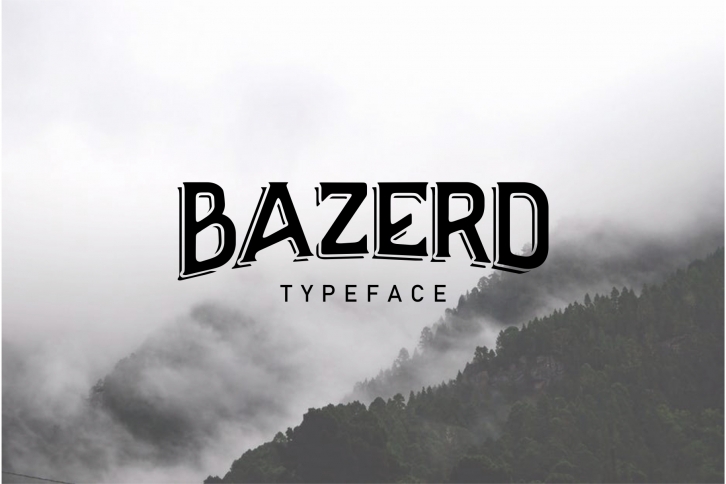
BAZERD is a great font that was designed by Dezignata. Imagine the amount of combinations you can create using this font! The archive is 6.60 MB and it was released on May 18, 2018. BAZERD looks beautiful on wedding invitations, greeting cards, logos, posters, labels, t-shirt designs, logos, business cards and is perfect for use in ink or watercolor works, fashion, magazines, packaging and food menus, children's books and more!